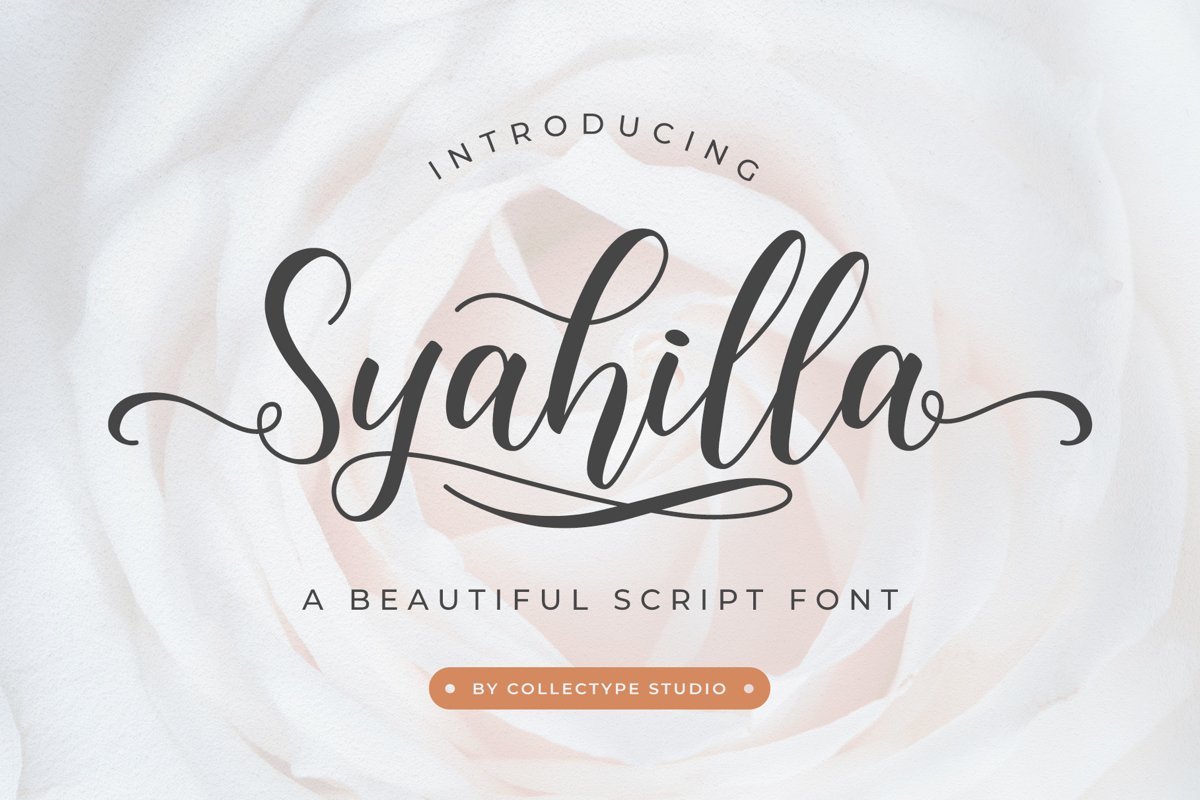
Syahilla Script
Syahilla
Syahilla is a beautiful script font with an original hand lettering style. This font is perfect for many different project such as invitation, logos & branding, wedding designs, social media posts, photography, watermark, stationery, label, product designs advertisements and any projects that need handwriting taste.
Syahilla Script